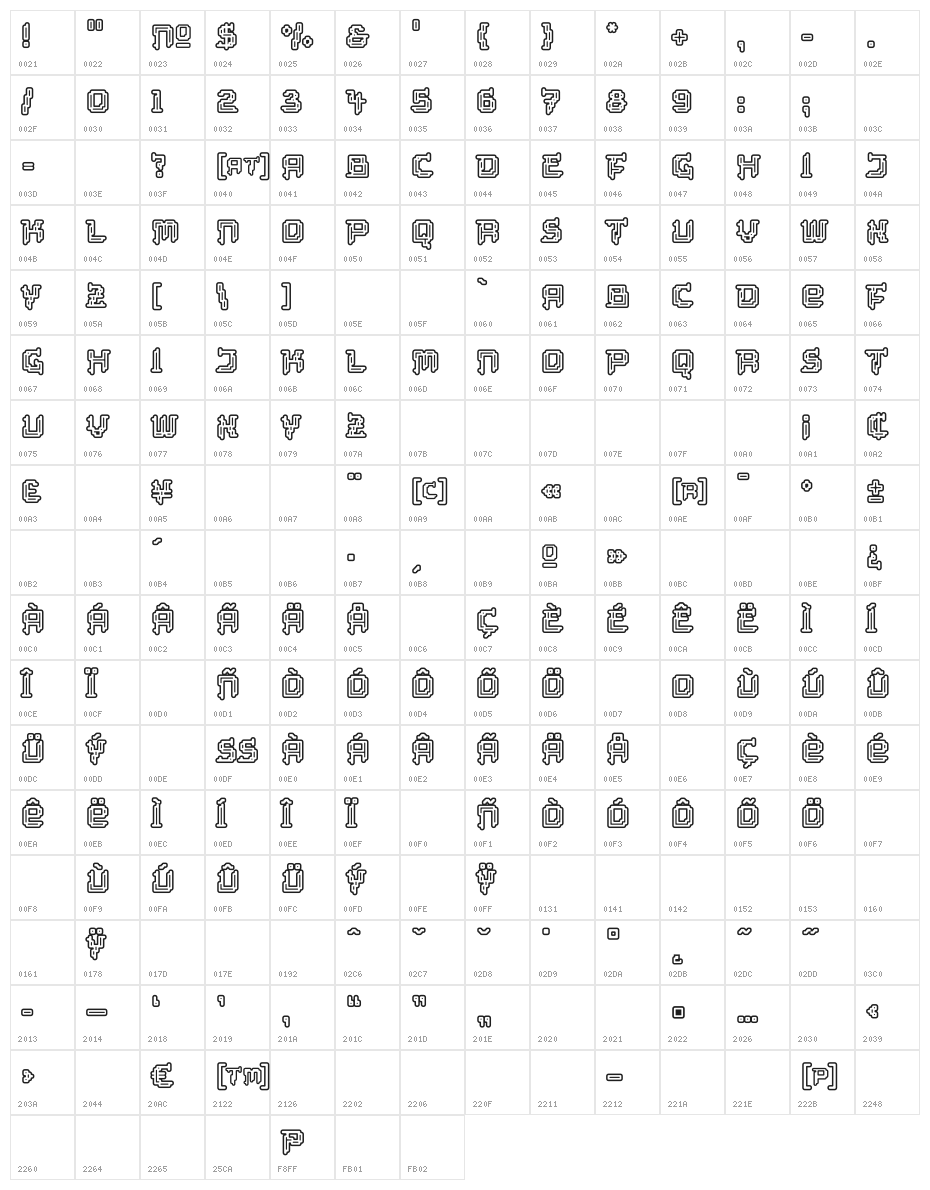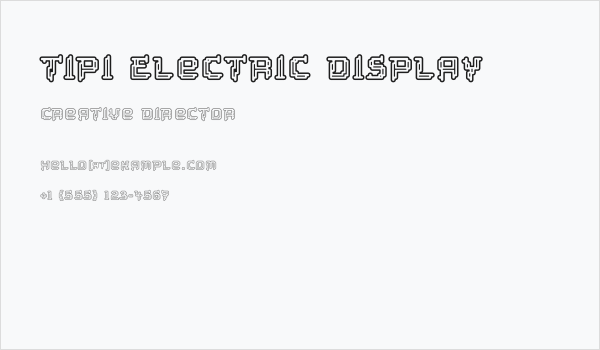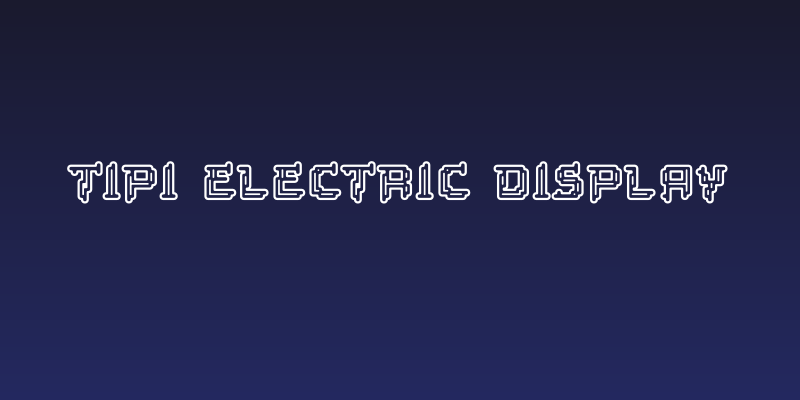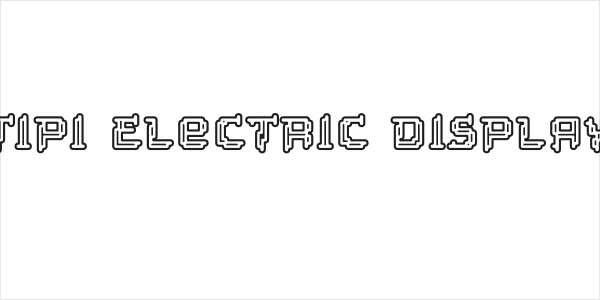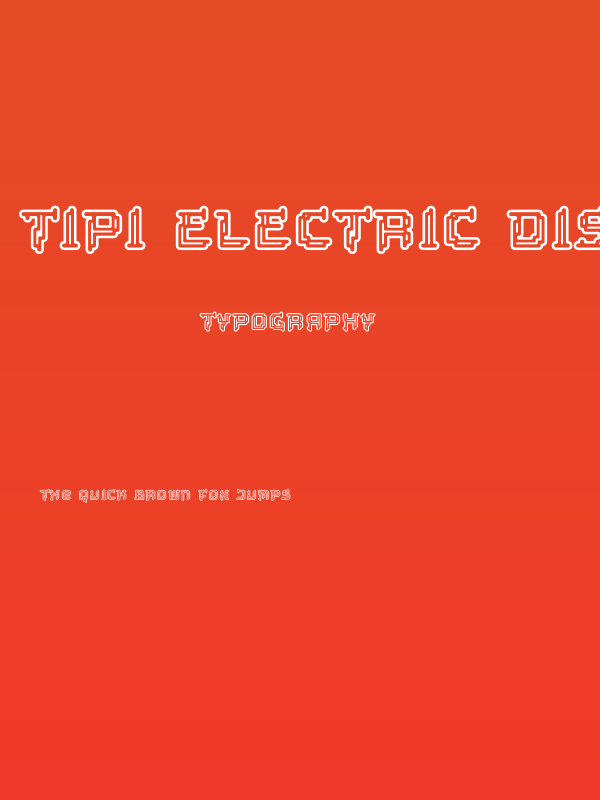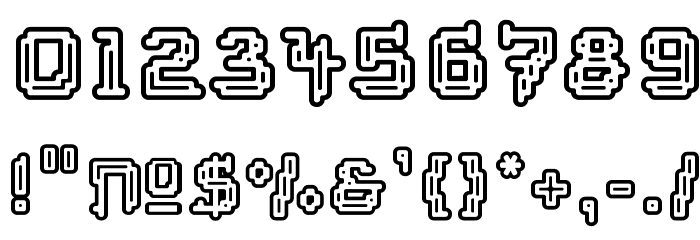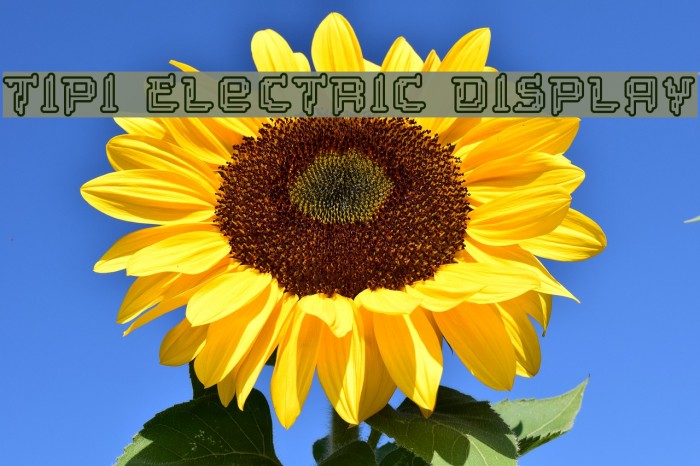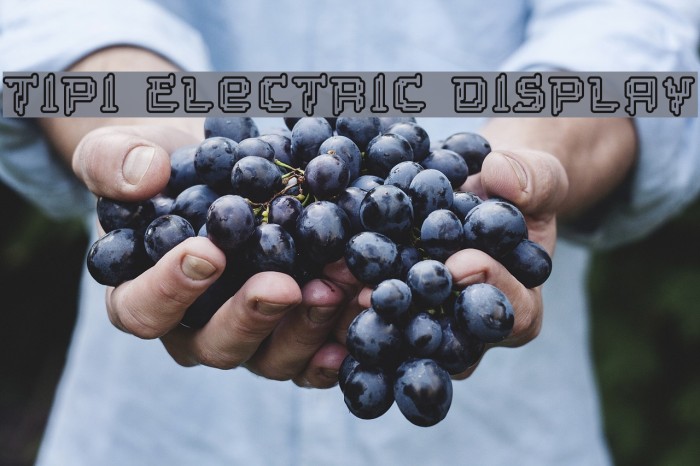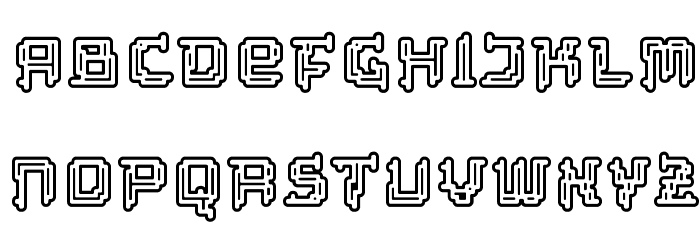
Tipi Electric Display Font
Tipi Electric Display Description
This font features a bold, geometric design with a distinct outline that gives it a three-dimensional appearance. The characters are constructed with a blocky, angular style, reminiscent of digital or electronic displays. Each letter and number is outlined, creating a layered effect that enhances its visual impact. The font maintains a consistent thickness throughout, contributing to its bold and striking presence. Its unique style makes it stand out, ideal for projects that require a futuristic or tech-inspired aesthetic.
| Proposed Projects | Ideal for tech-themed projects, digital displays, posters, and branding that requires a modern, futuristic look. |